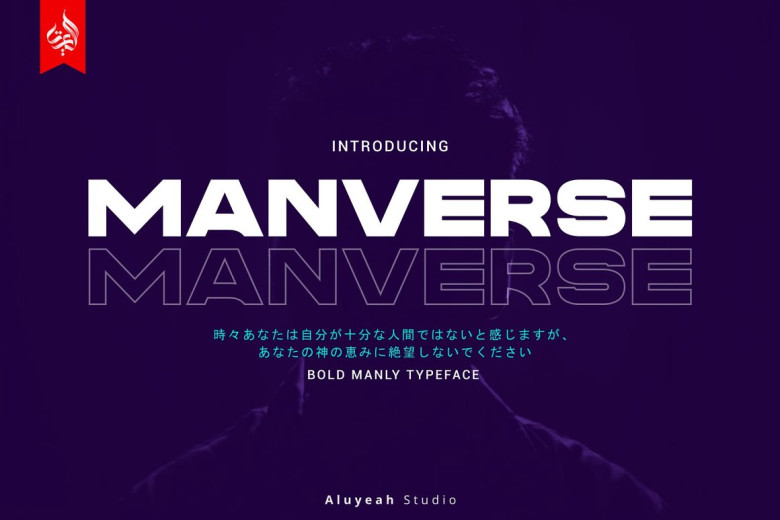
Manverse Font
Introduce Manverse Sans Serif font, an edgy typeface specifically tailored for men. Drawing inspiration from things that define masculinity, this font features strong, bold and firm characteristics with all caps support, multilingual support, two distinct styles and all caps versions available – making it suitable for magazine headlines, websites ads product packages.
Manverse Sans Serif Font